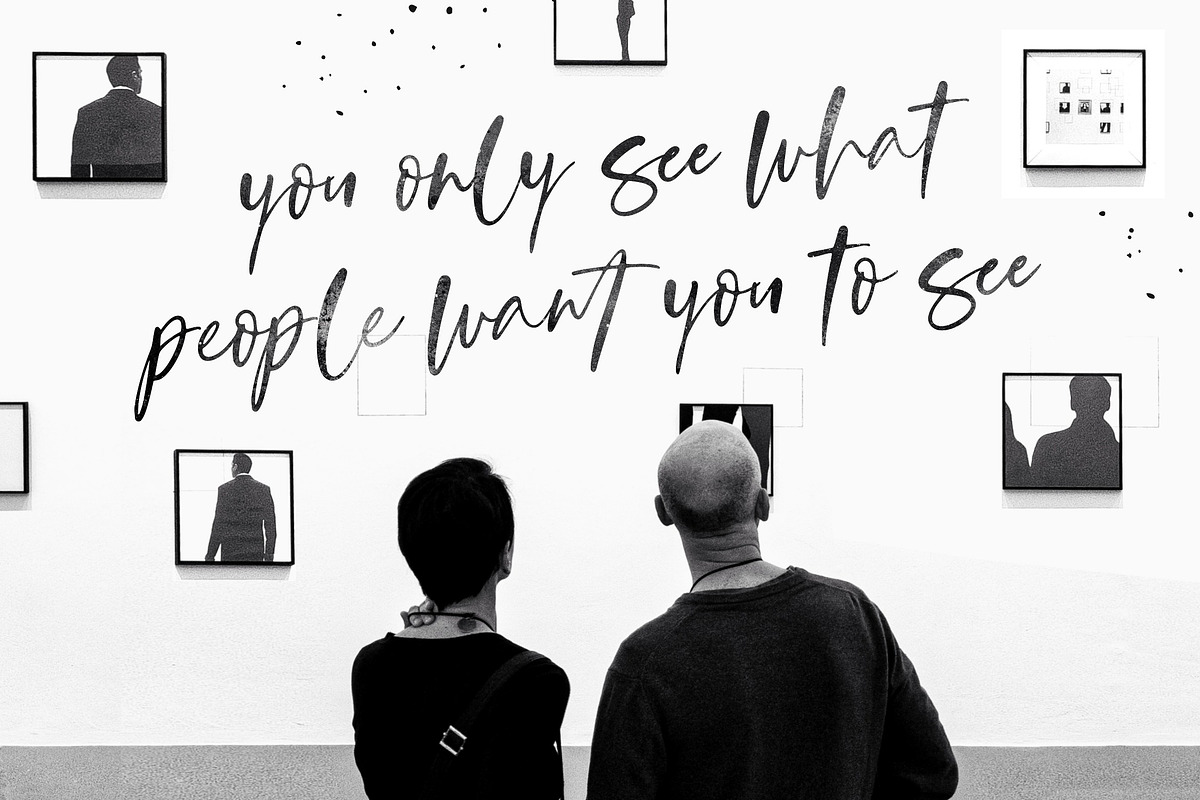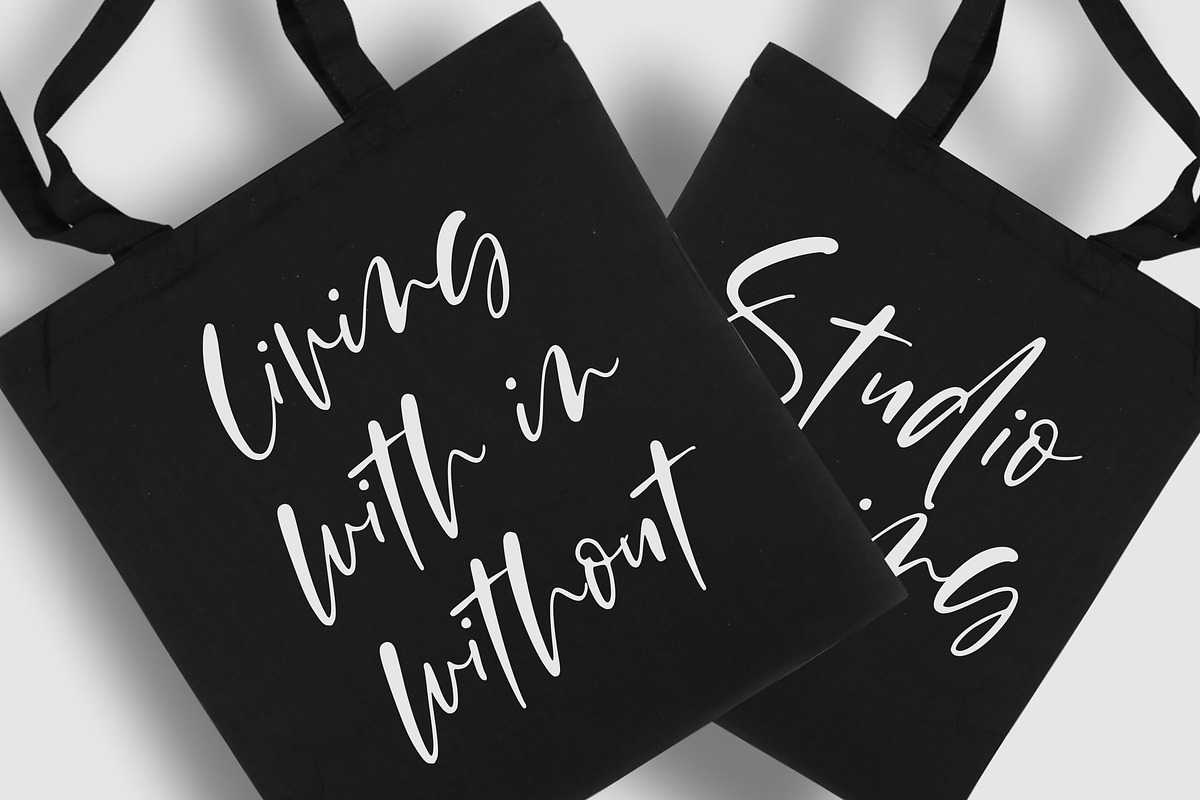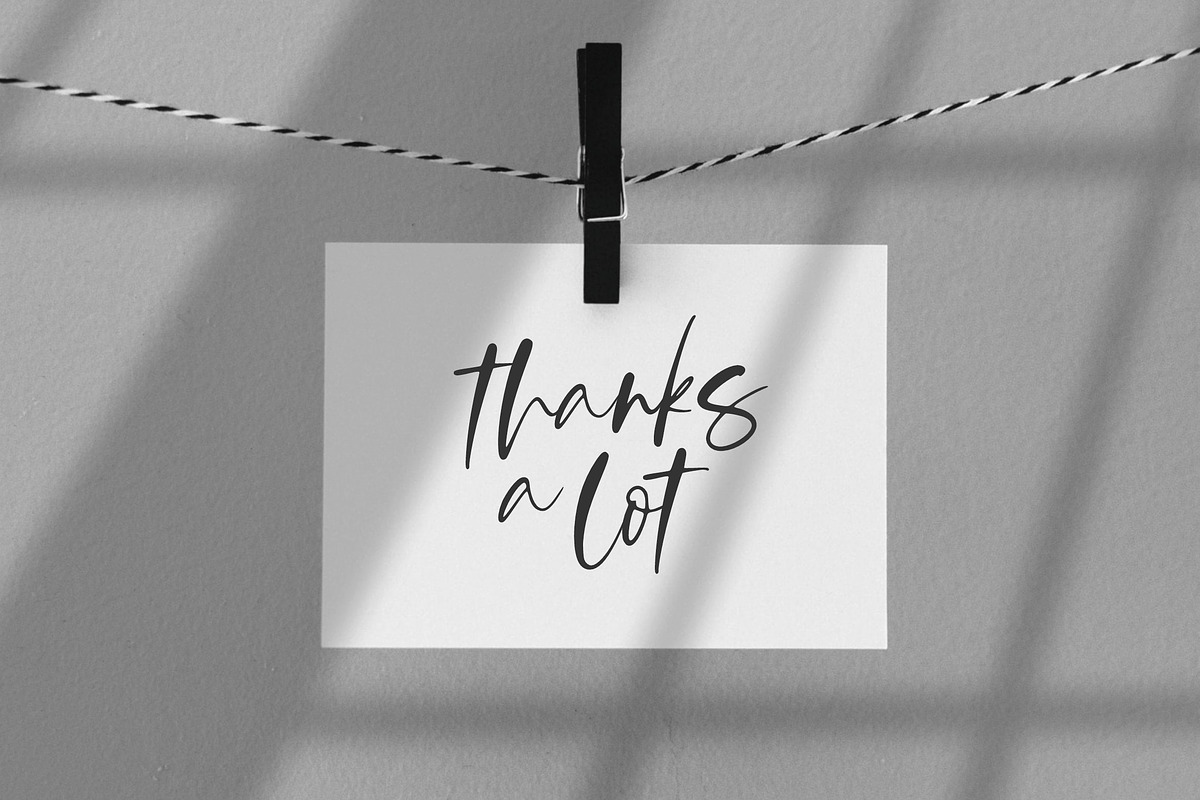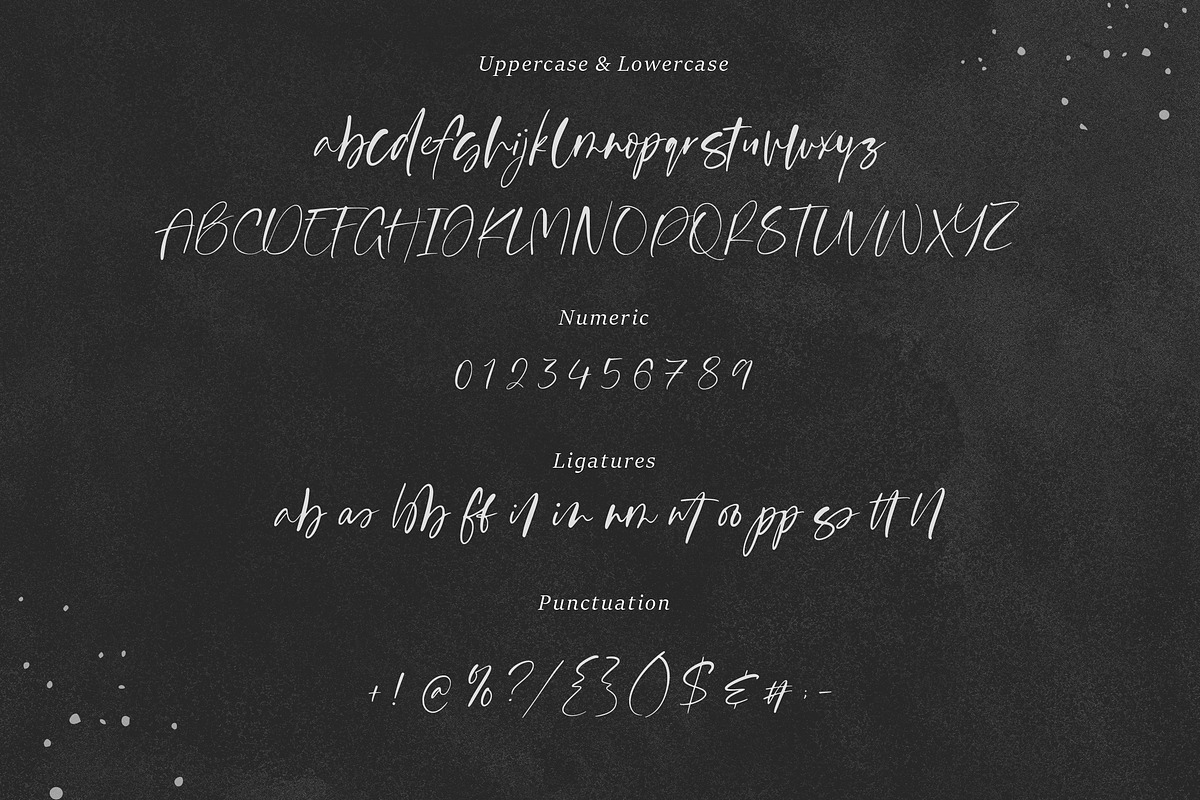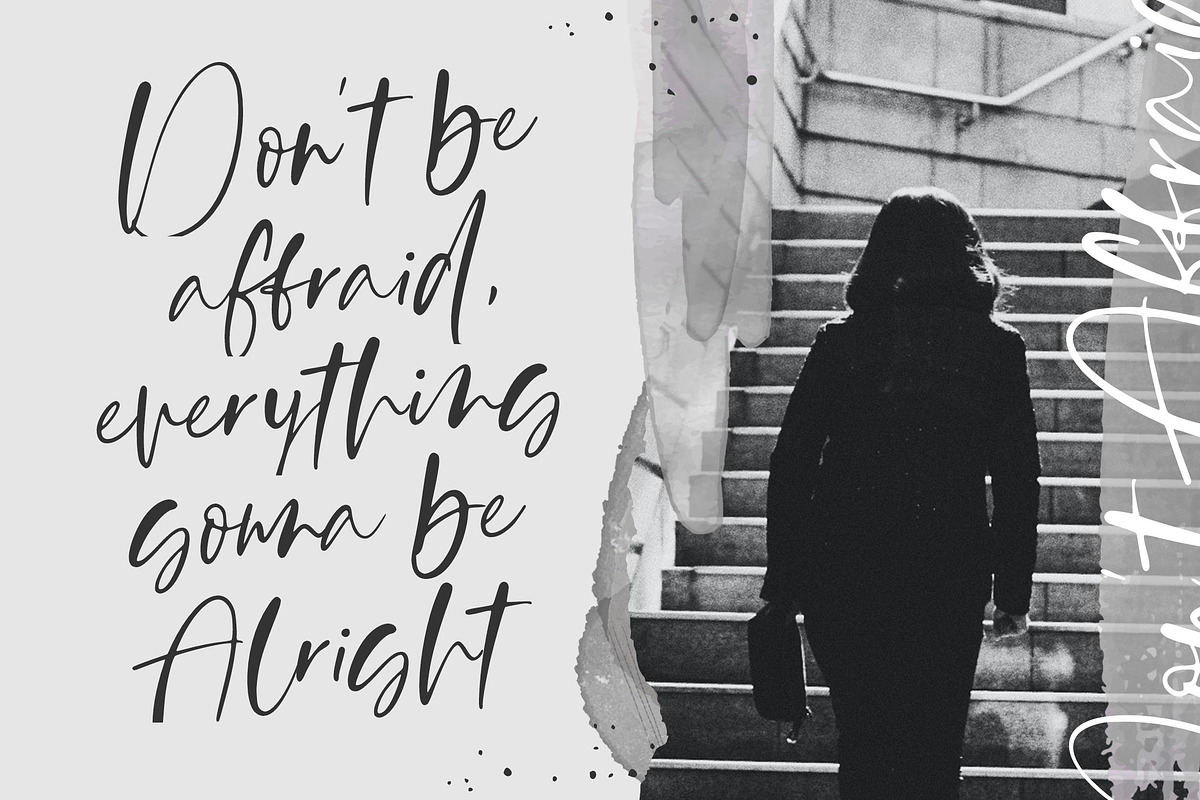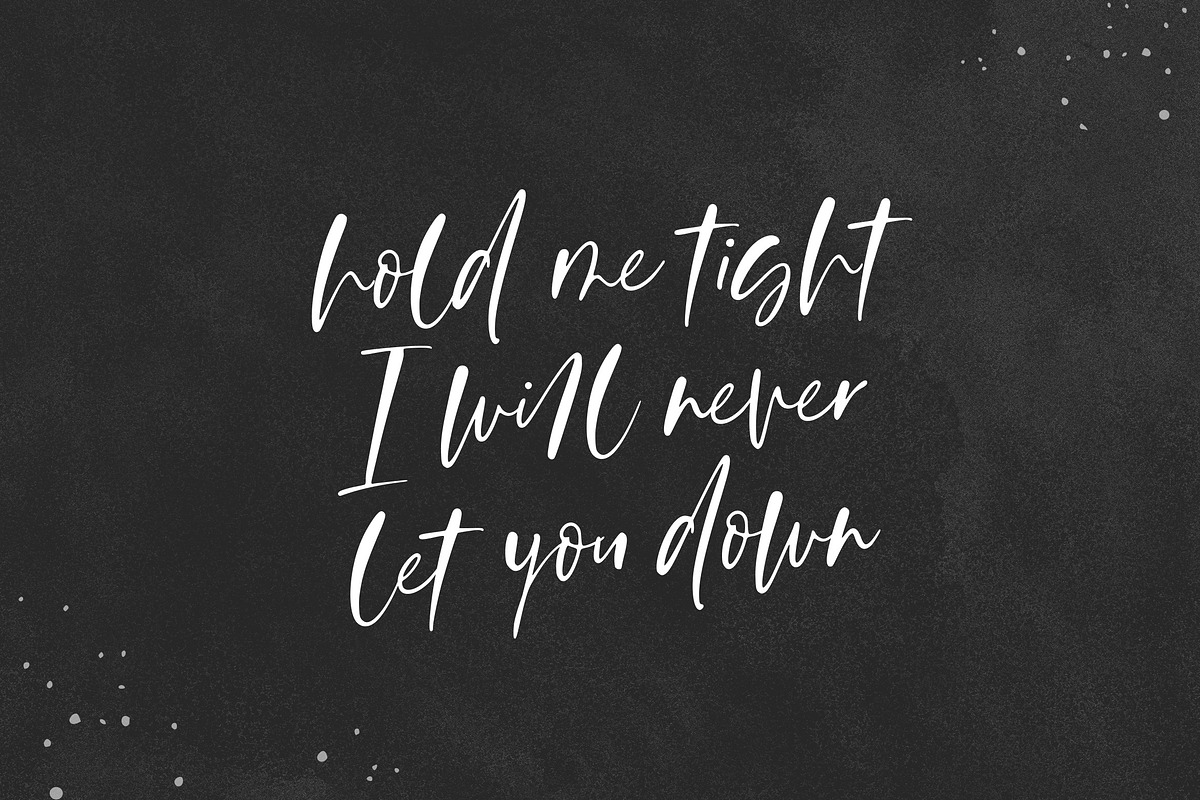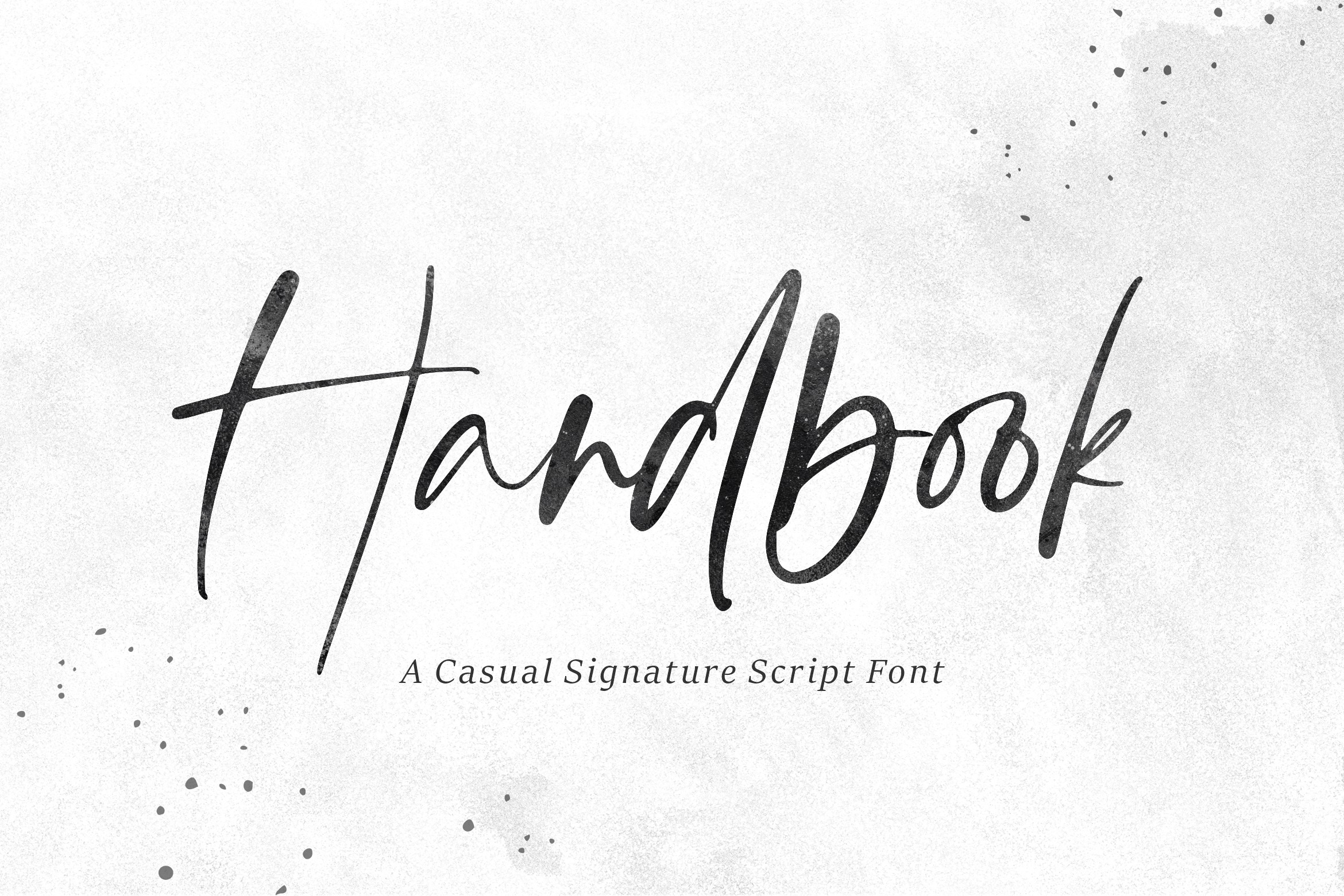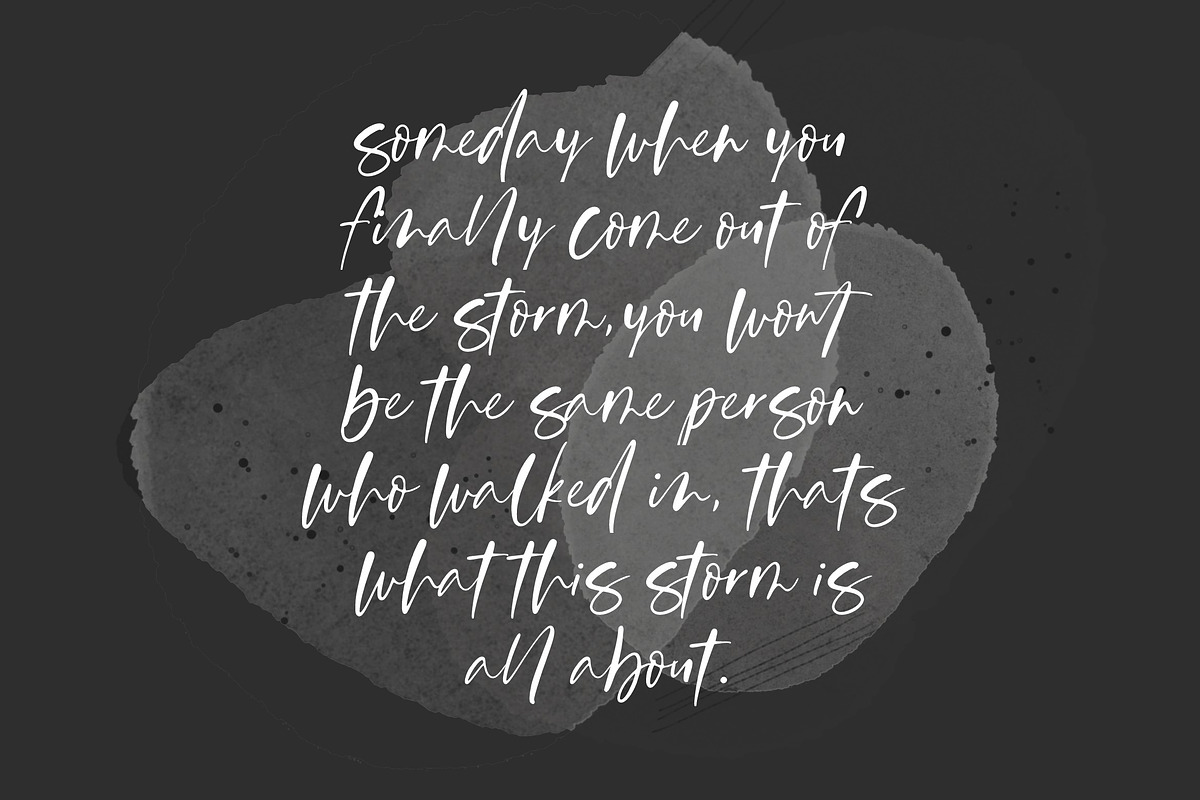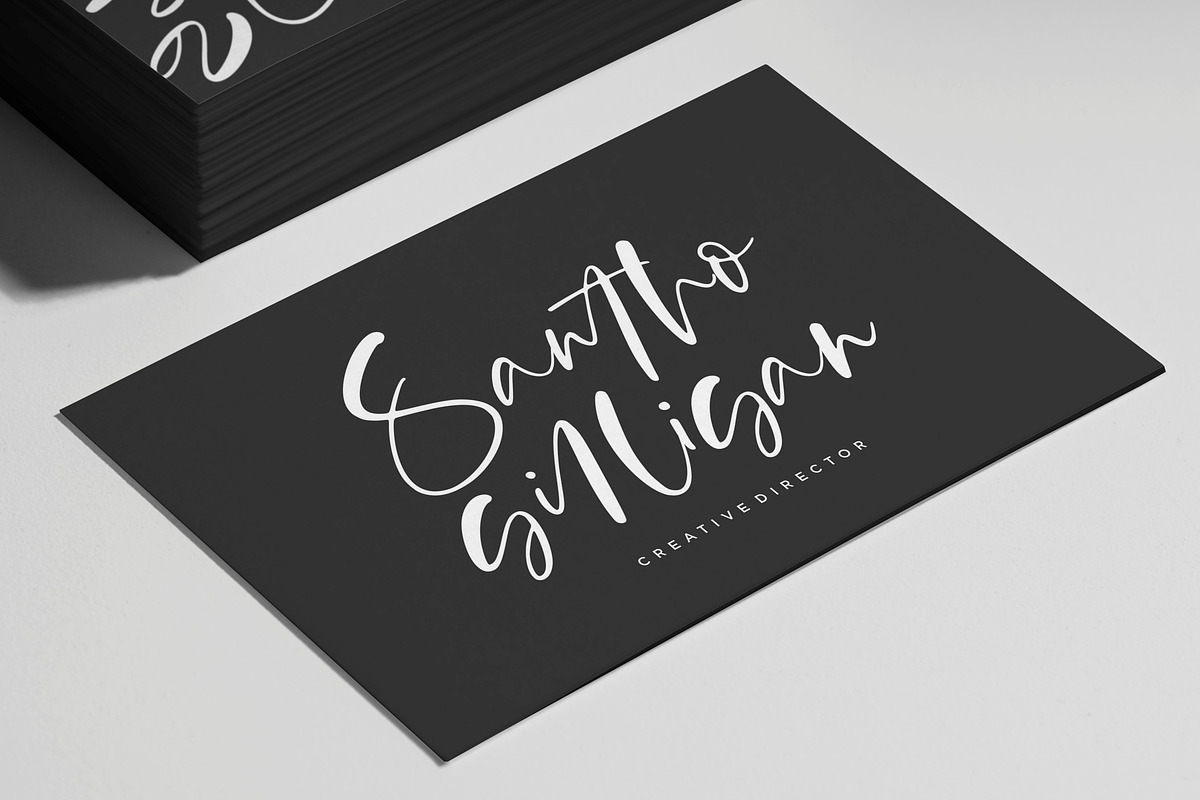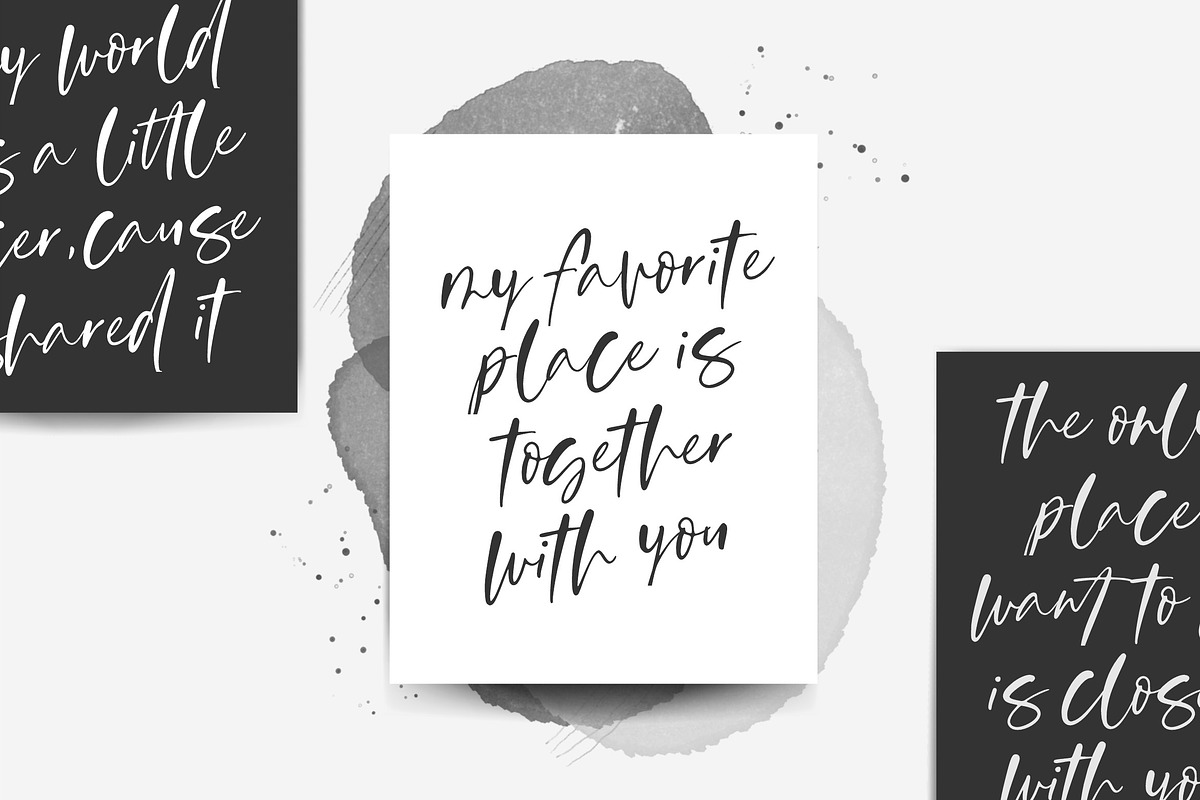
Handbook Handwritten Font
Introducing Handbook Font!
Handbook is an artsy and unique signature font. This font is suitable for handwriting logos, T-shirts, merchandise, quotes, social media posts, advertising, and a lot more!
Handbook comes with an accent language and ligatures.